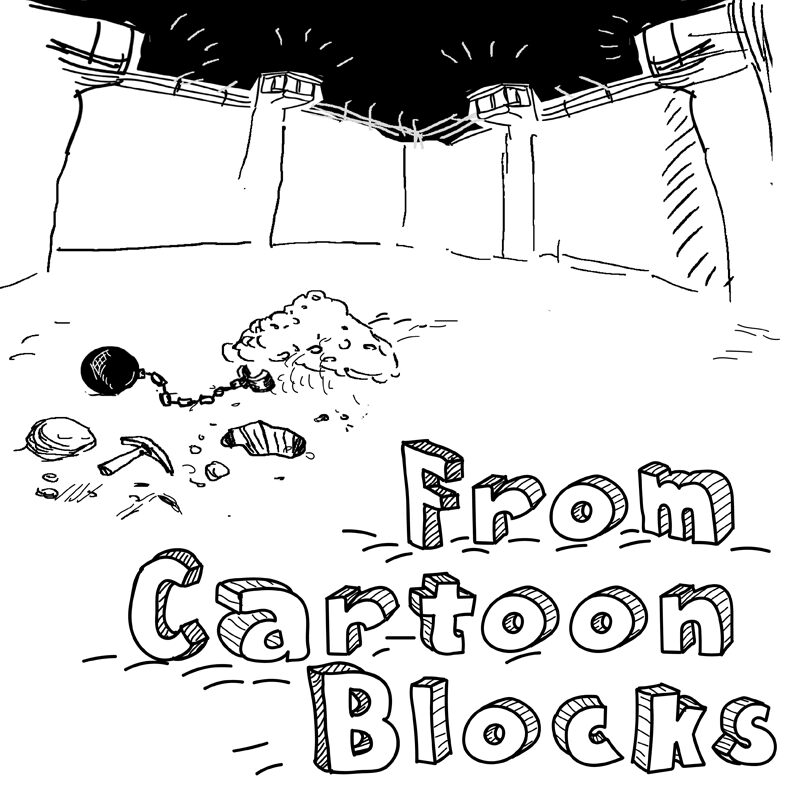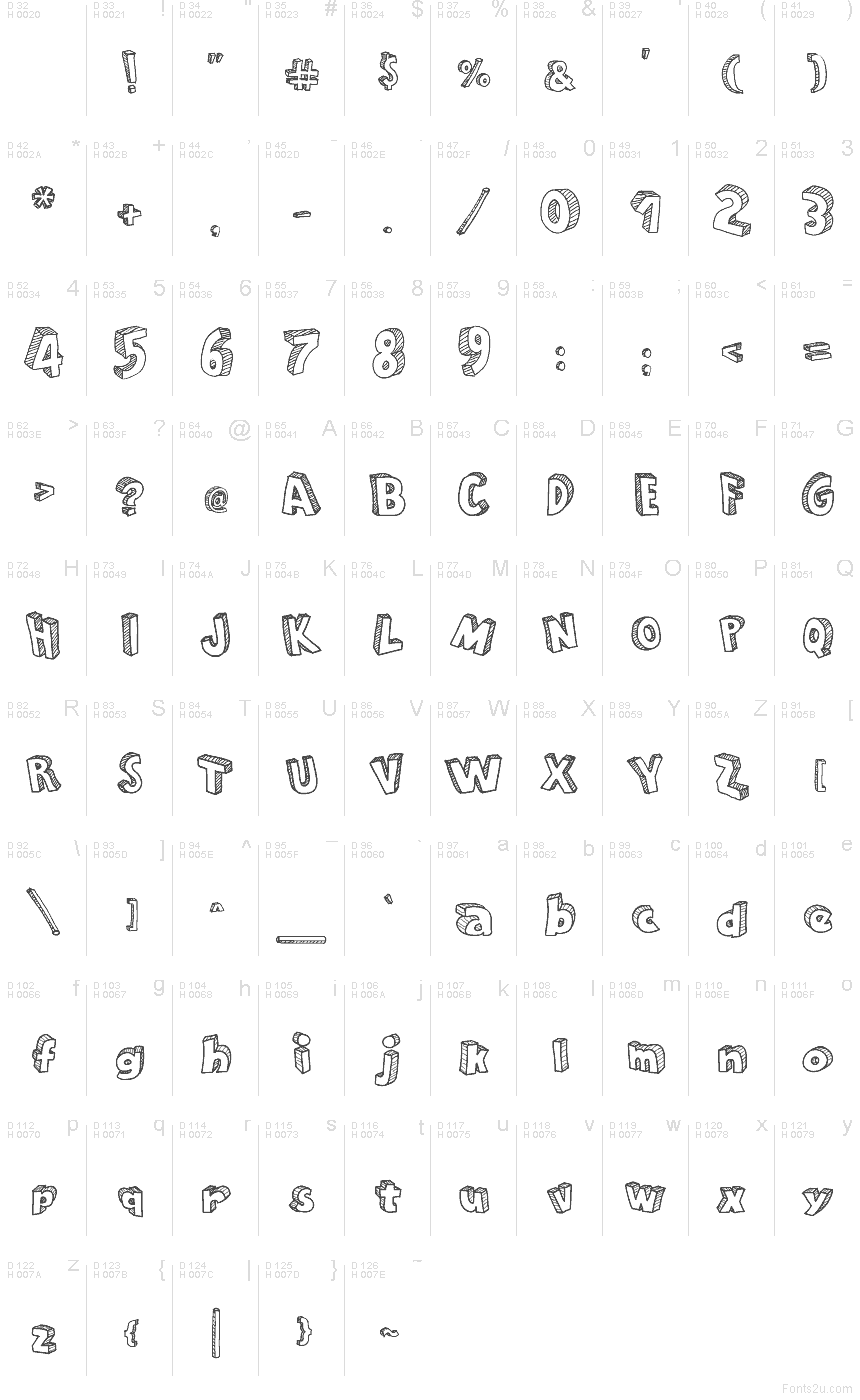
From Cartoon Blocks Regular
From Cartoon Blocks font by Galdino Otten Fonts is a free 3D cartoon display typeface that looks like it’s been sketched straight from a kid’s TV show. Chunky, rounded letters wobble with playful irregularity, while the blocky drop-shadows add a stacked, toy-brick feel. The lines feel hand-drawn and slightly messy in a good way—like doodles in the margin that suddenly became the headline.
Using From Cartoon Blocks, your titles instantly shout fun: think game logos, kids’ book covers, birthday invitations, YouTube thumbnails, comic headers, or classroom posters. This free font thrives at big sizes where its bubbly outlines and shaded cubes can really pop. Pair it with a simple rounded sans-serif in smaller text to keep everything readable while letting those cartoon blocks steal the show.